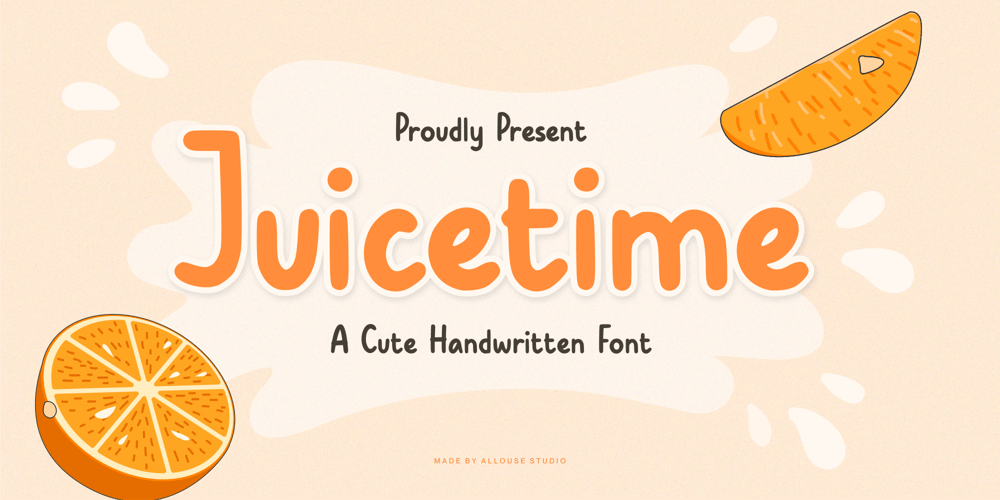
Juicetime
Juicetime font
Juicetime Font Family was designed by Fachrizal Yusuf and published by Allouse Studio. Juicetime contains 1 styles and family package options. Proudly Presenting, Juicetime A Cute Handwriten Font.Juicetime is perfect for any titles, logo, product packaging, branding project, megazine, social media, wedding, or just used to express words above the background.Juicetime also come with Multi-Lingual Support.Enjoy the font, feel free to comment or feedback, send me PM or email. Thank You!